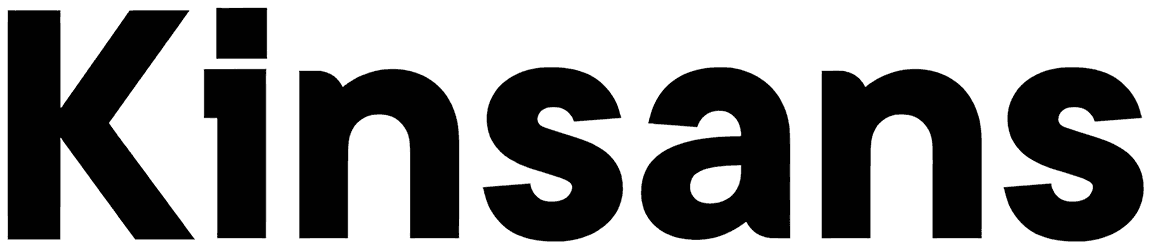
Kinsans Font
Kinsans is a simple sans serif font without numbers, which seems to be very necessary among flashy fonts. This font has a simple look that can give viewers a break and draw their attention to the content of the text.
This geometric font can both link you to the past and be a way to communicate with the future. Therefore, you can create different interpretations of this font by using different elements and producing logos, posters, and content at all times.